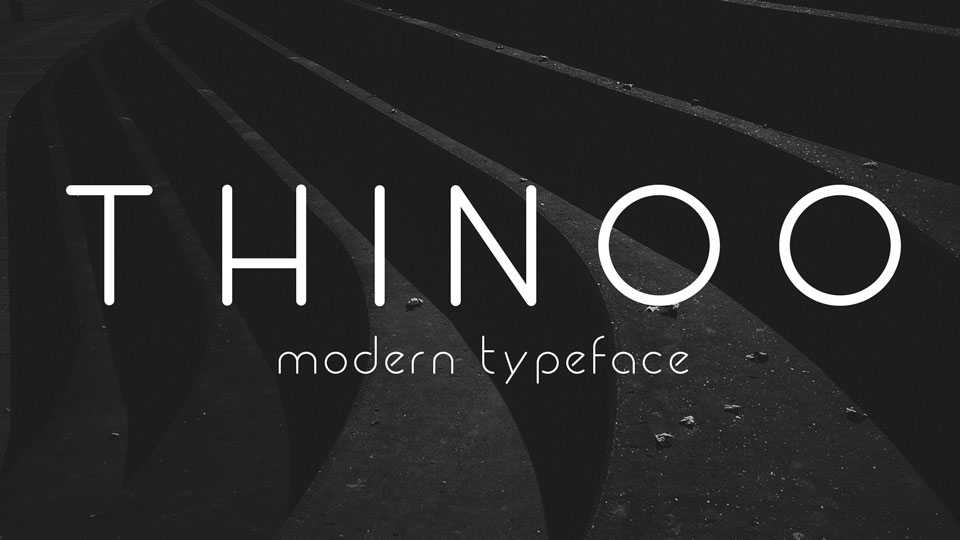
Download Thinoo typeface, a clean and modern rounded geometric font family in two weights. Thinoo is suitable for branding, headlines, posters and other graphic design project.
Designer: Nauman Altaf